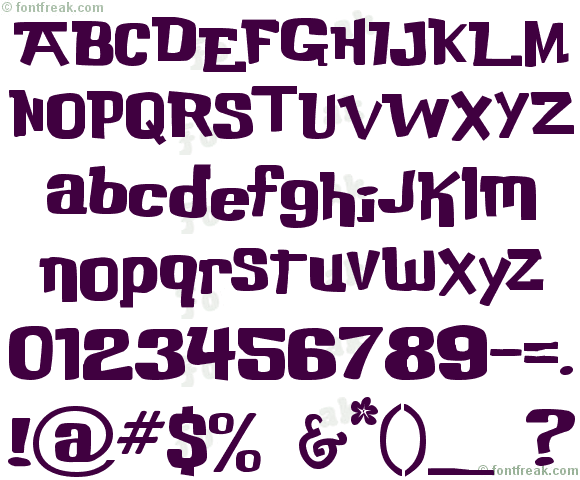
Buka Bird
Buka Bird, designed by Steve Ferrera in 2008, is a captivating display font that embodies a playful and whimsical character. This freeware typeface features bold, chunky letterforms, making it stand out in any design. With its unique stroke weight and slightly irregular shapes, Buka Bird offers a delightful contrast that captures attention while maintaining legibility. The spacing is thoughtfully crafted, ensuring that each letter has room to breathe, adding to the font's overall charm. This distinctive style is reminiscent of hand-drawn letters, making it perfect for projects that require a personal touch.
Ideal use cases for Buka Bird include creating eye-catching movie posters, vibrant children's book covers, and lively event flyers. It is also well-suited for restaurant menus that aim to convey a fun and inviting atmosphere, as well as for personal projects like invitations or greeting cards that need a touch of whimsy. The font appeals to a diverse audience, including graphic designers looking for a unique typeface, small business owners wanting to enhance their branding, and content creators seeking to infuse creativity into their digital projects.
What sets Buka Bird apart is its ability to evoke a sense of joy and creativity, making any project feel more engaging and lively. Its playful design not only captures the essence of fun but also resonates with viewers, ensuring that your message stands out. Whether you're designing for personal enjoyment or aiming to impress an audience, Buka Bird font free download is an excellent choice for those who appreciate originality and charm in their typography.